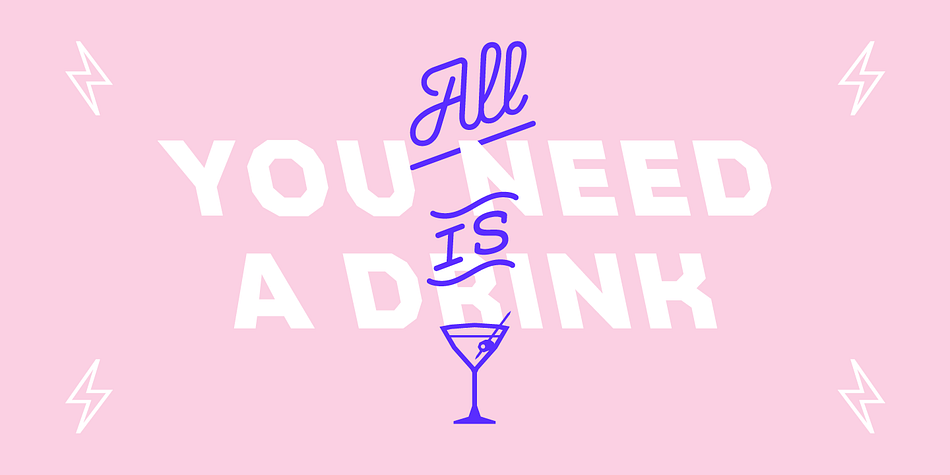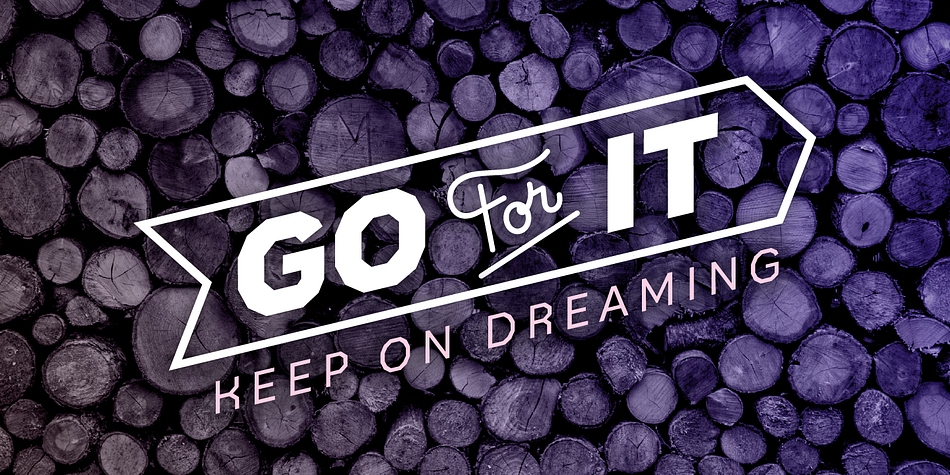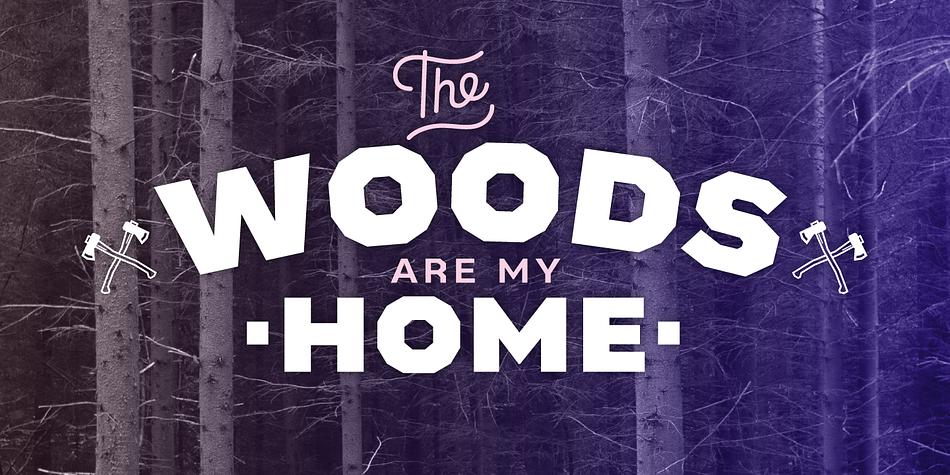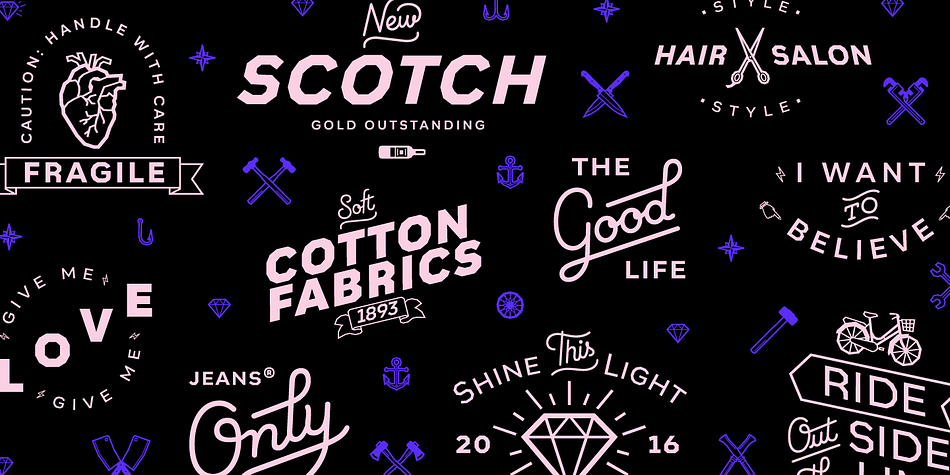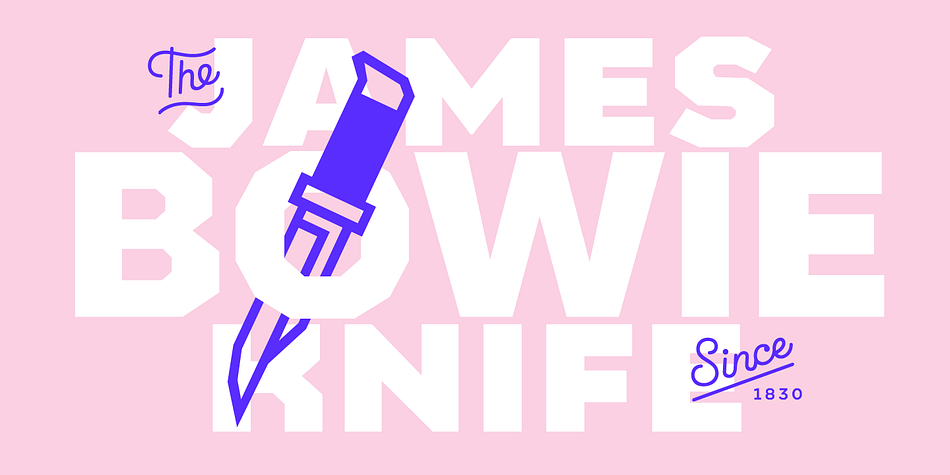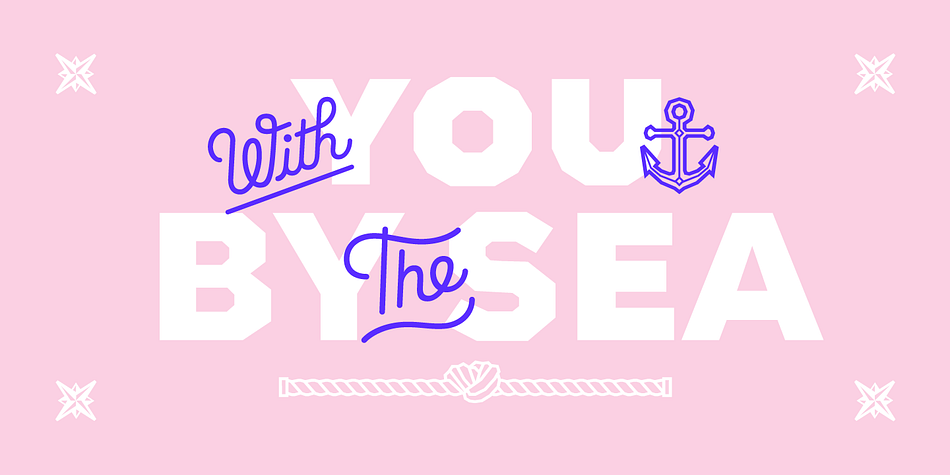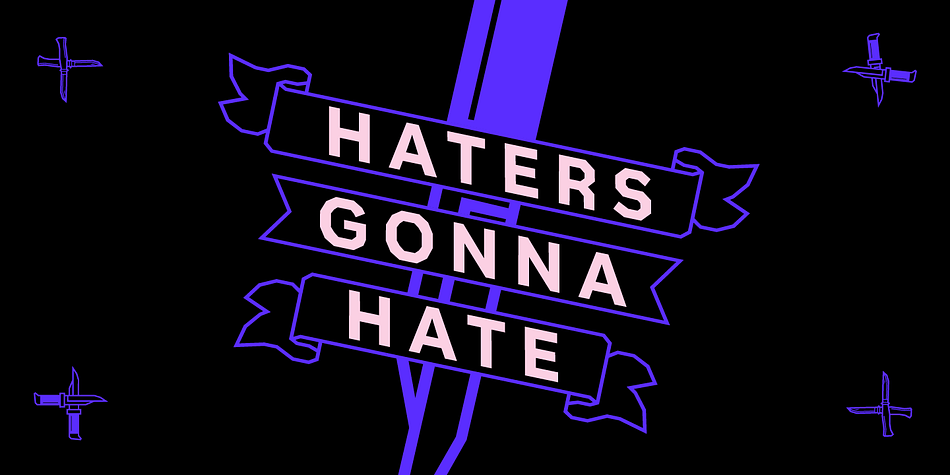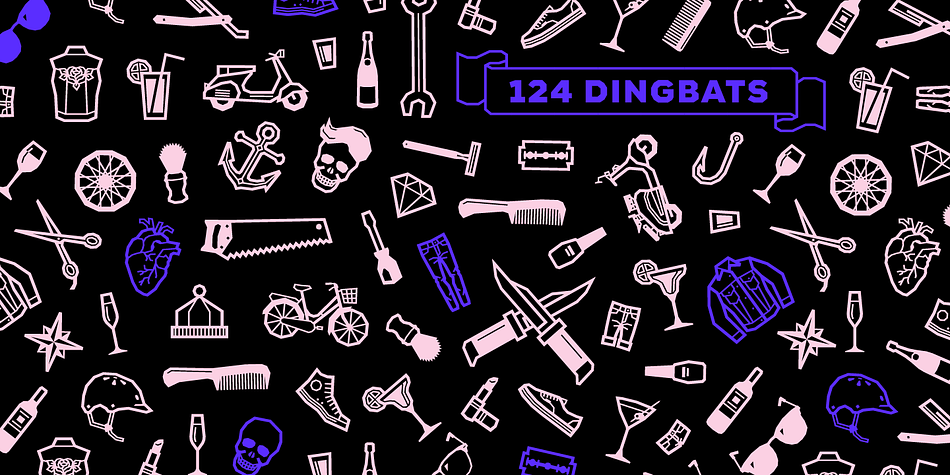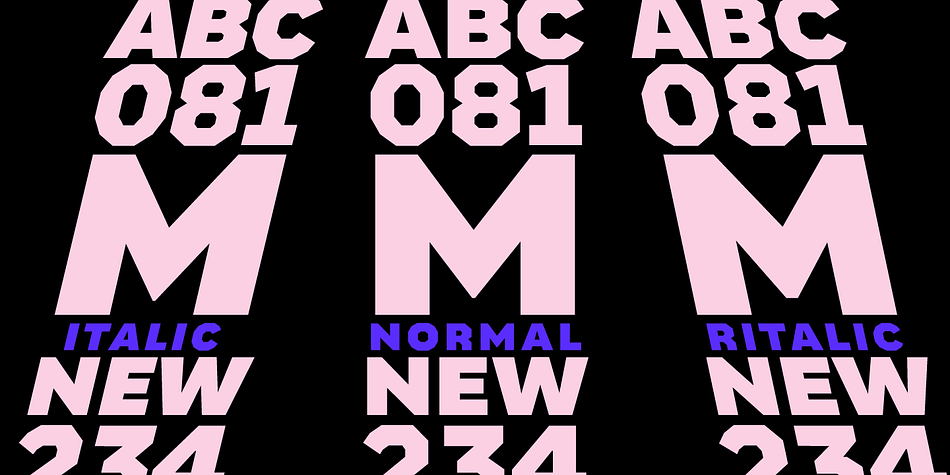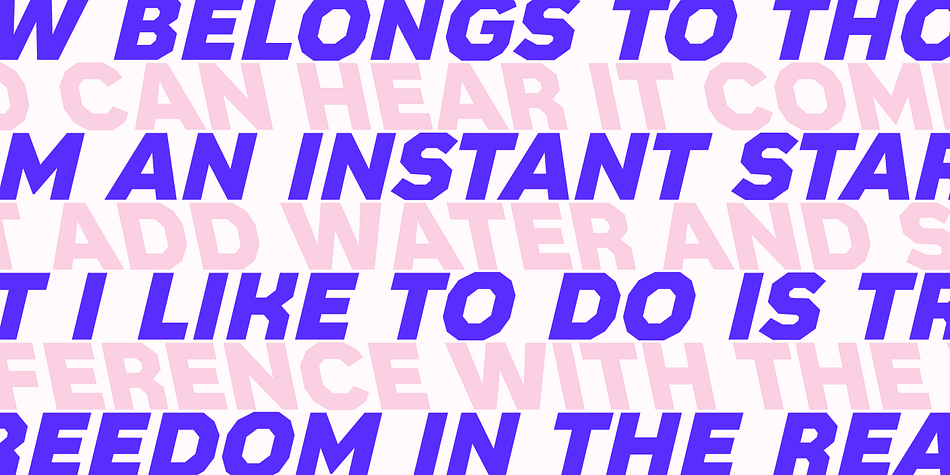
Designed by Bercz Design Studio and Latinotype Team, Bowie is a dingbat and display sans font family. This typeface has twenty styles and was published by Latinotype.
The name of this typeface comes from the surname of James (Jim) Bowie, American pioneer and inventor of the famous Bowie knife. This is exactly what inspired English rock star David Jones to change his stage name to David Bowie.
Bowie is the new font by Bercz and Latinotype Team. The typeface is a type system that reflects a strong personality, an urban feel and an unprejudiced style. Bowie is well-suited for publishing projects, branding and packaging.
This font family is composed of three sections: a group of sharp-shaped uppercase fonts (small caps and all caps) in 5 weights, each with matching regular/back slant italics, providing users with 15 different styles for multiple combinations; a set of script catchwords and eclectic sets of dingbats and flags, that which communicates blue-sky thinking and feel of the project.
Bowie -a collaborative project between Bercz and Latinotype Team-was developed by Leonidas Loyola, Valentina Vega, Rodrigo Fuenzalida, César Araya and Bruno Jara, under the supervision of Dany Berczeller, Daniel Hernández y Luciano Vergara.
Bowie consists of 5 weights, ranging from Thin to Black, and comes with a 439-character set that supports 206 languages.